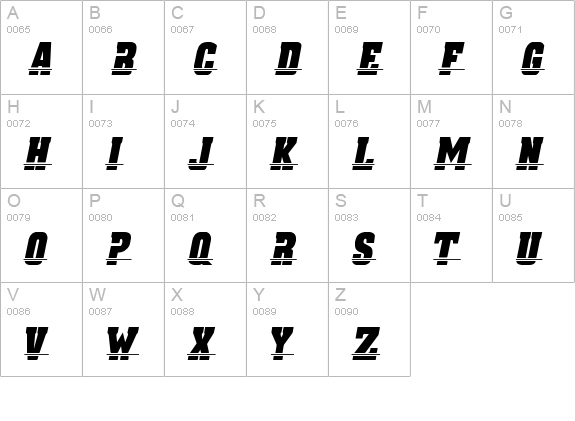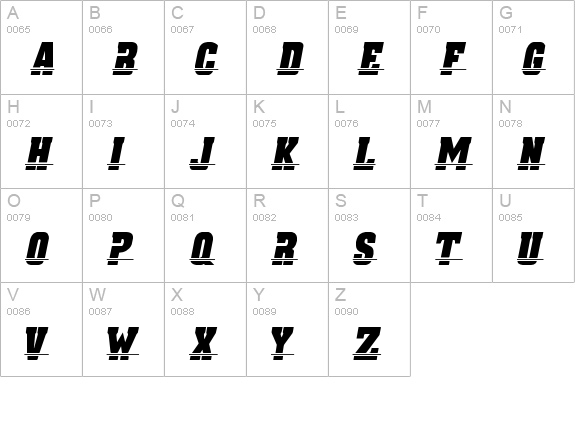
Introducing CHARGERS1 font, a bold and dynamic typeface that will electrify your designs! This striking font showcases a unique combination of modern and futuristic elements, making it perfect for a wide range of creative projects. With its strong and powerful letterforms, CHARGERS1 font commands attention and exudes a sense of energy and strength. Whether you're designing eye-catching logos, captivating headlines, or impactful posters, this font will effortlessly make your message stand out from the crowd. But what sets CHARGERS1 font apart is not just its remarkable aesthetics – it's also the fact that it is freely available to download at FontsMarket.com. Yes, you read that right! This incredible font can be yours at absolutely no cost, allowing you to enhance your designs without breaking the bank. Designed with versatility in mind, CHARGERS1 font offers a wide range of weights and styles, ensuring that you have the perfect option for any project. Its clean and precise lines guarantee legibility, even at small sizes, making it an excellent choice for both print and digital applications. So why wait? Unleash the power of CHARGERS1 font and take your designs to new heights. Download it for free at FontsMarket.com and watch as your creations come to life with a bold and captivating energy. Don't miss out on this incredible opportunity to add a touch of electrifying style to your typographic toolbox. Get CHARGERS1 font today and let your creativity run wild!